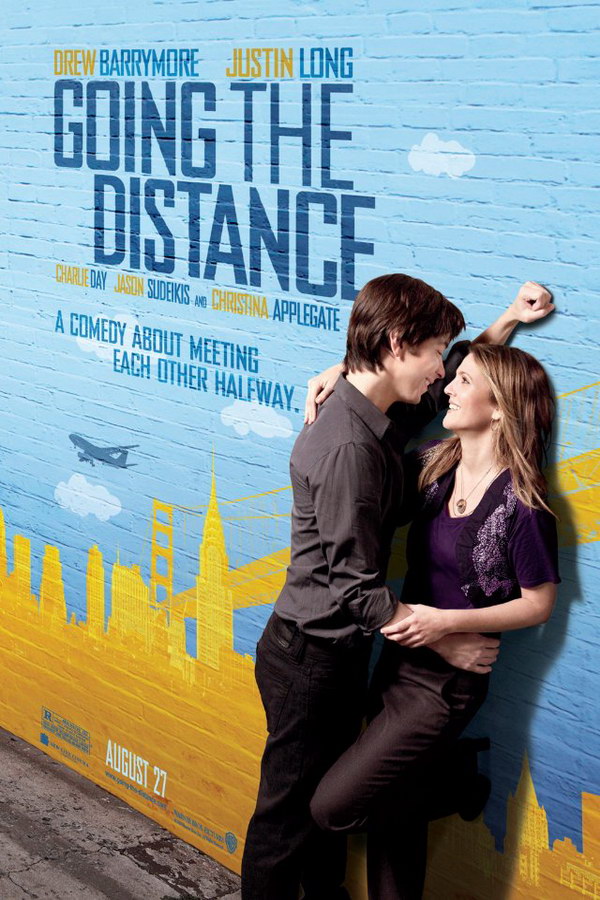
Going the Distance Font
ComedyGoing the Distance is a romantic comedy film directed by Nanette Burstein, released in 2010. The movie follows a couple, Erin and Garrett, who attempt to maintain a long-distance relationship between New York City and San Francisco.
Agency, which was first created by Morris Fuller Benton in 1932 and then expanded by David Berlow in 1990, is the typeface used for the movie title on the poster. More information about it is available here.